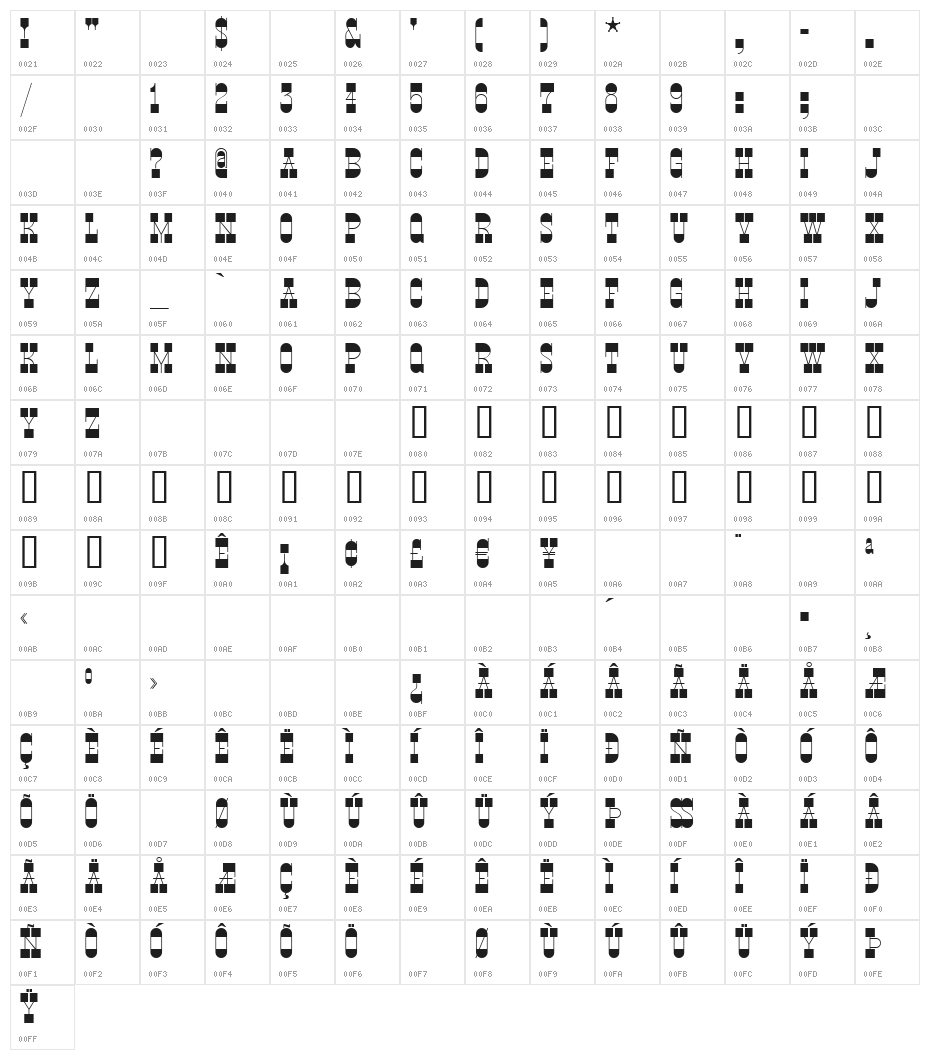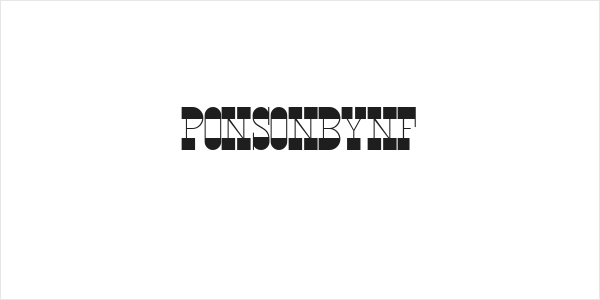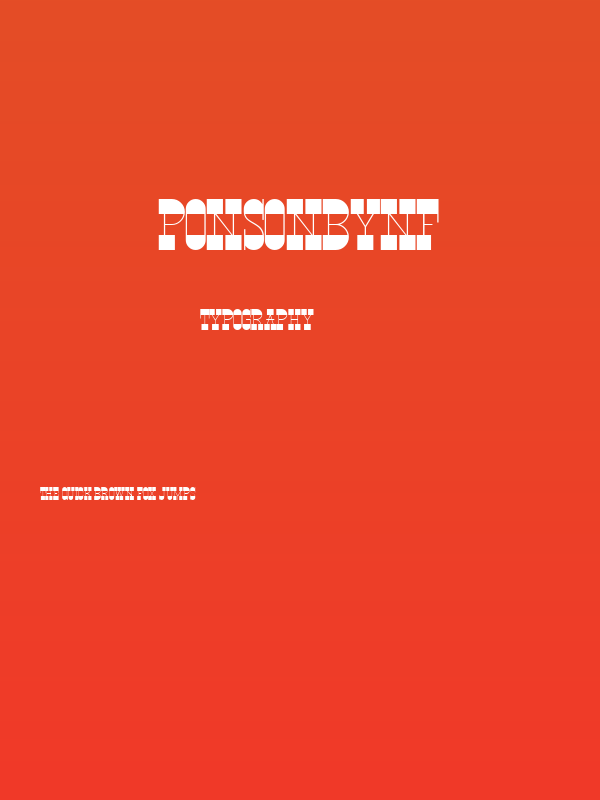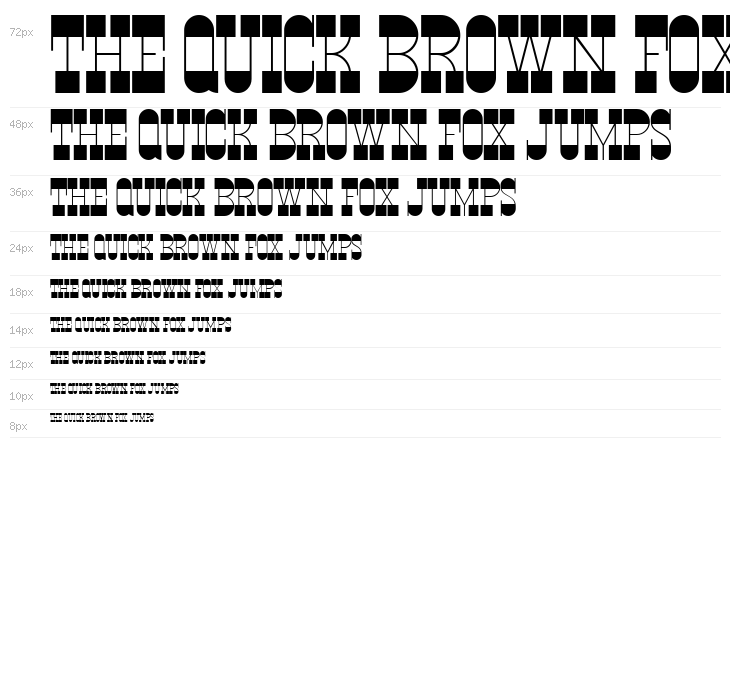
PonsonbyNF Font
PonsonbyNF Description
This font features a bold and striking design with a unique blend of geometric shapes and sharp angles. The characters are constructed with thick, block-like forms that create a strong visual impact. The uppercase letters are particularly prominent, with a consistent height and width that gives the font a monospaced appearance. The lowercase letters maintain the same boldness, ensuring readability while adding a touch of modernity. Numbers and special characters are equally bold, with distinctive shapes that complement the overall style. The font's design is ideal for making a statement, with its high contrast and distinctive look.
| Proposed Projects | Ideal for branding, poster design, headlines, and any project requiring a bold, impactful typeface. |